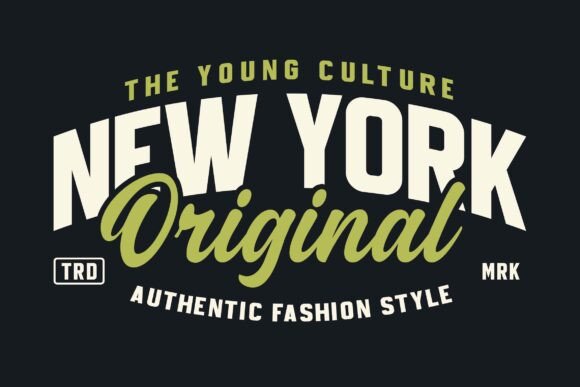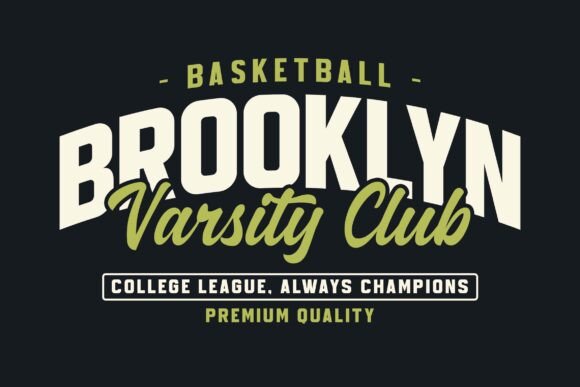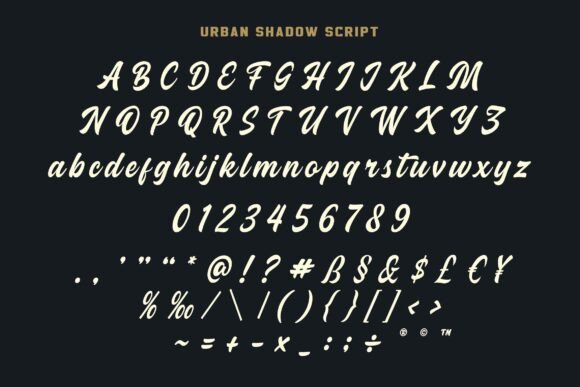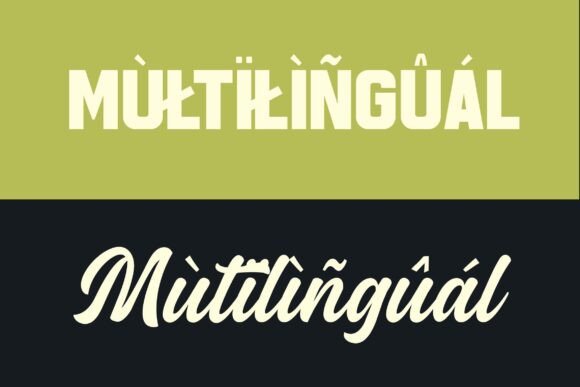
Urban Shadow Font
Urban Shadow is a modern sports combination font, that is made for any professional project branding, such as logotype, watermarks, poster, branding, promotions, product packaging, etc. Every letter has a college sporty and varsity style design. This font comes in 3 font (sans serif and script). Urban Shadow font includes a full set of varsity college sporty uppercase and lowercase letters, numerals and punctuation.